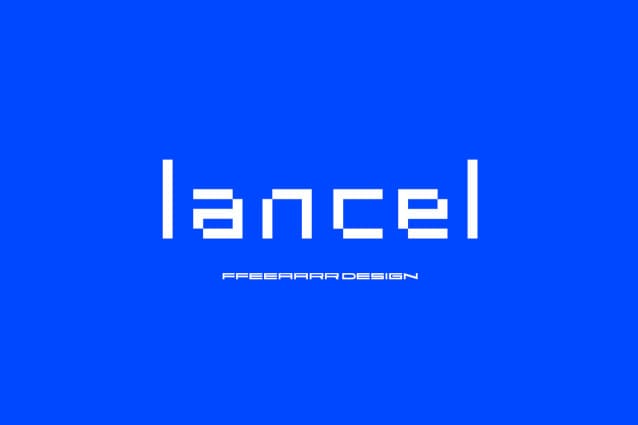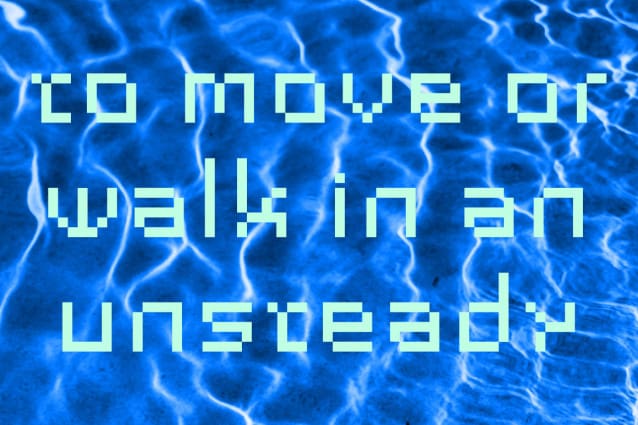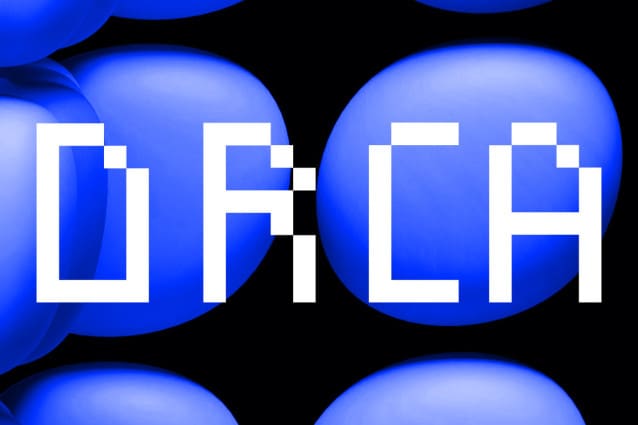
Groutpix Flow Typeface
Groutpix Flow Font, Suitable for any design needs : logo, branding, modern advertising design, logos, poster quote, book / cover Title, editorial design, website / blog, card, t-shirts, and any hand-lettered needs.
Designer Name: ffeeaarr